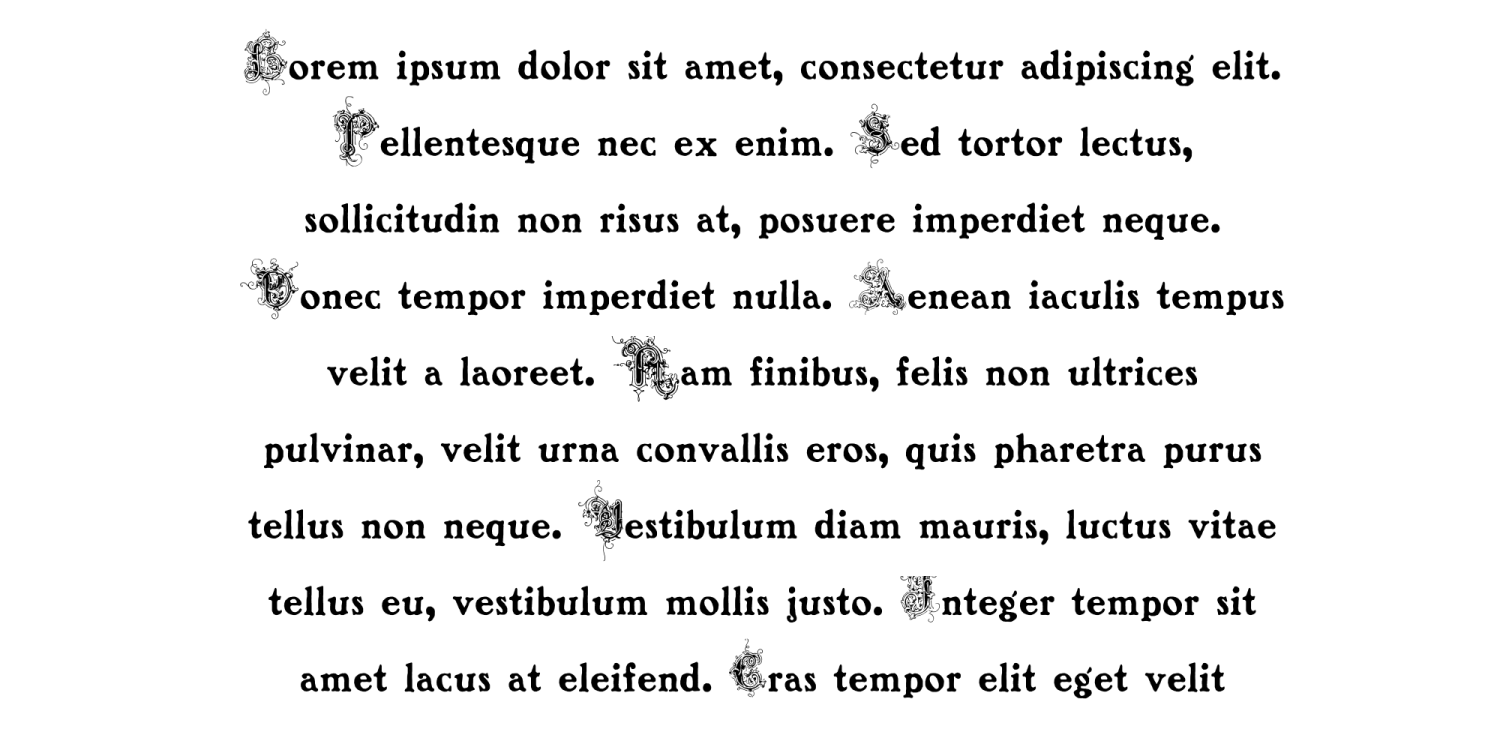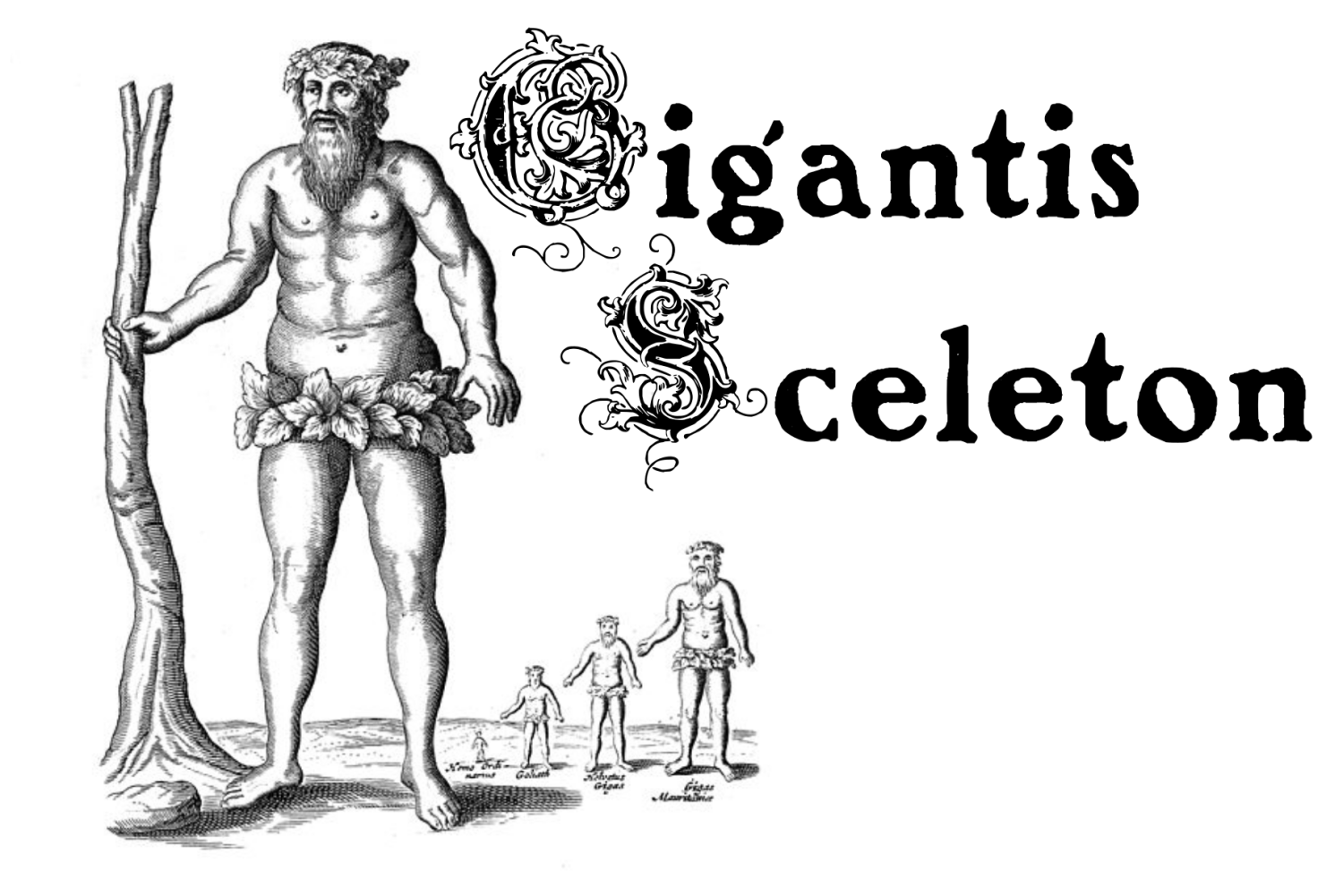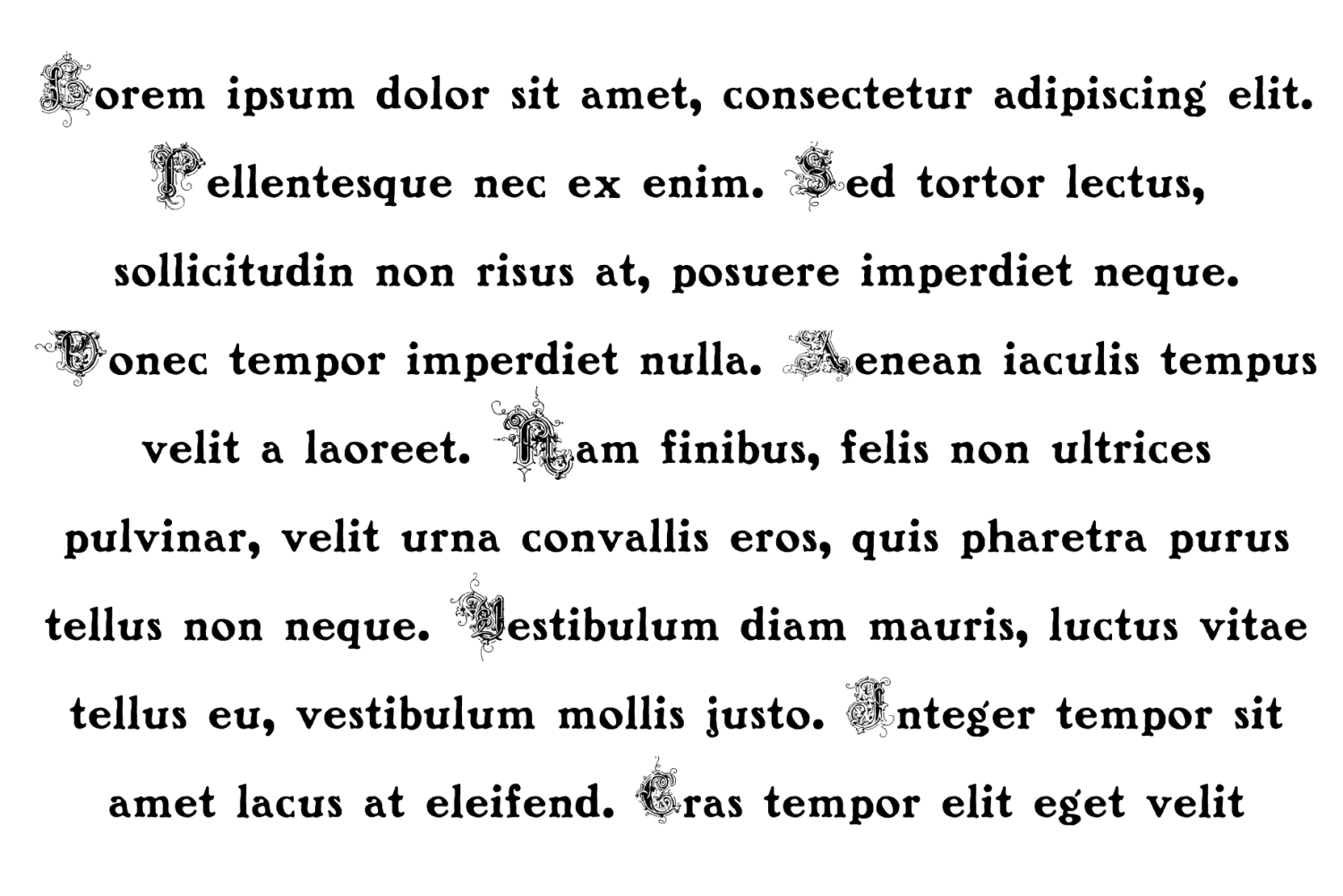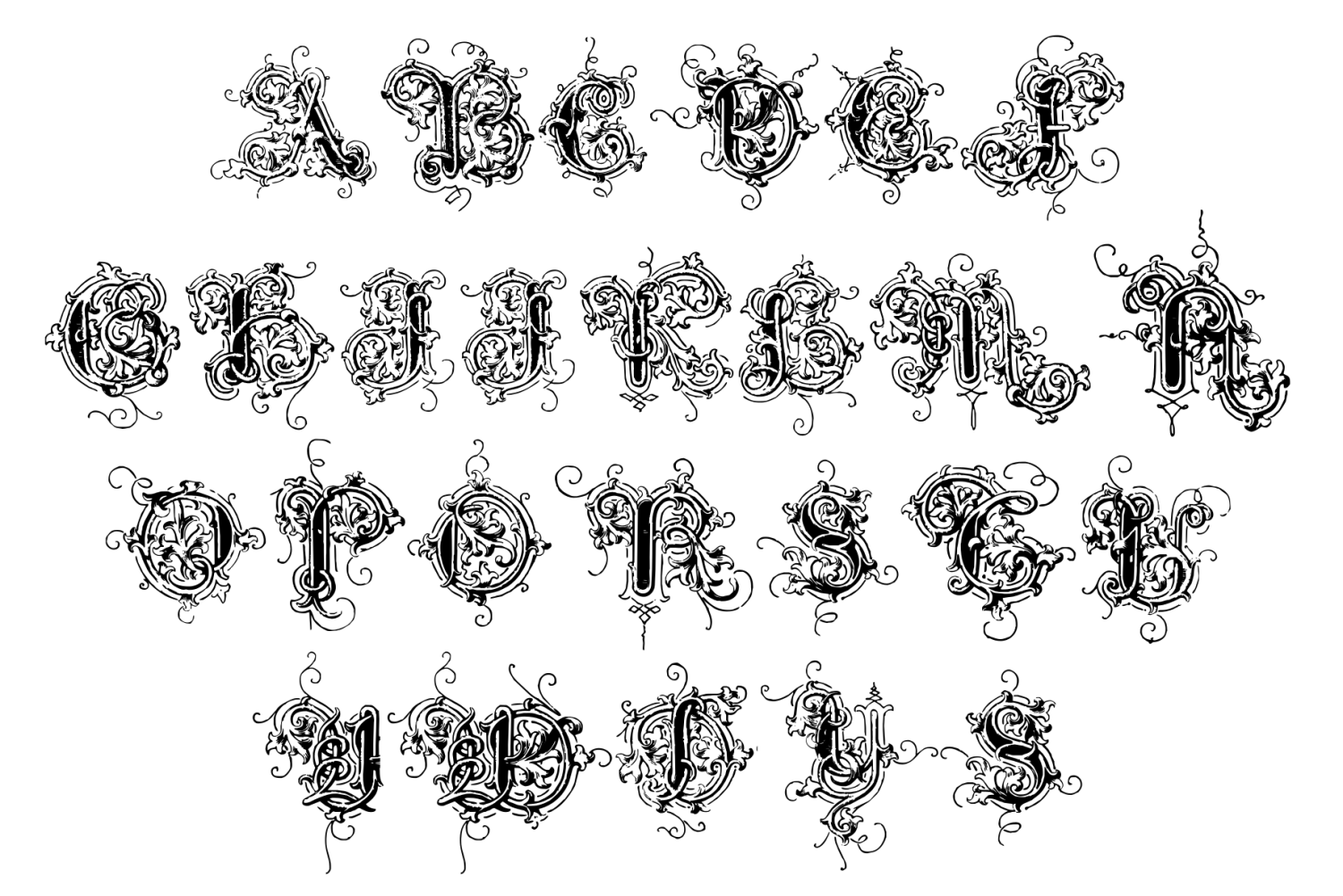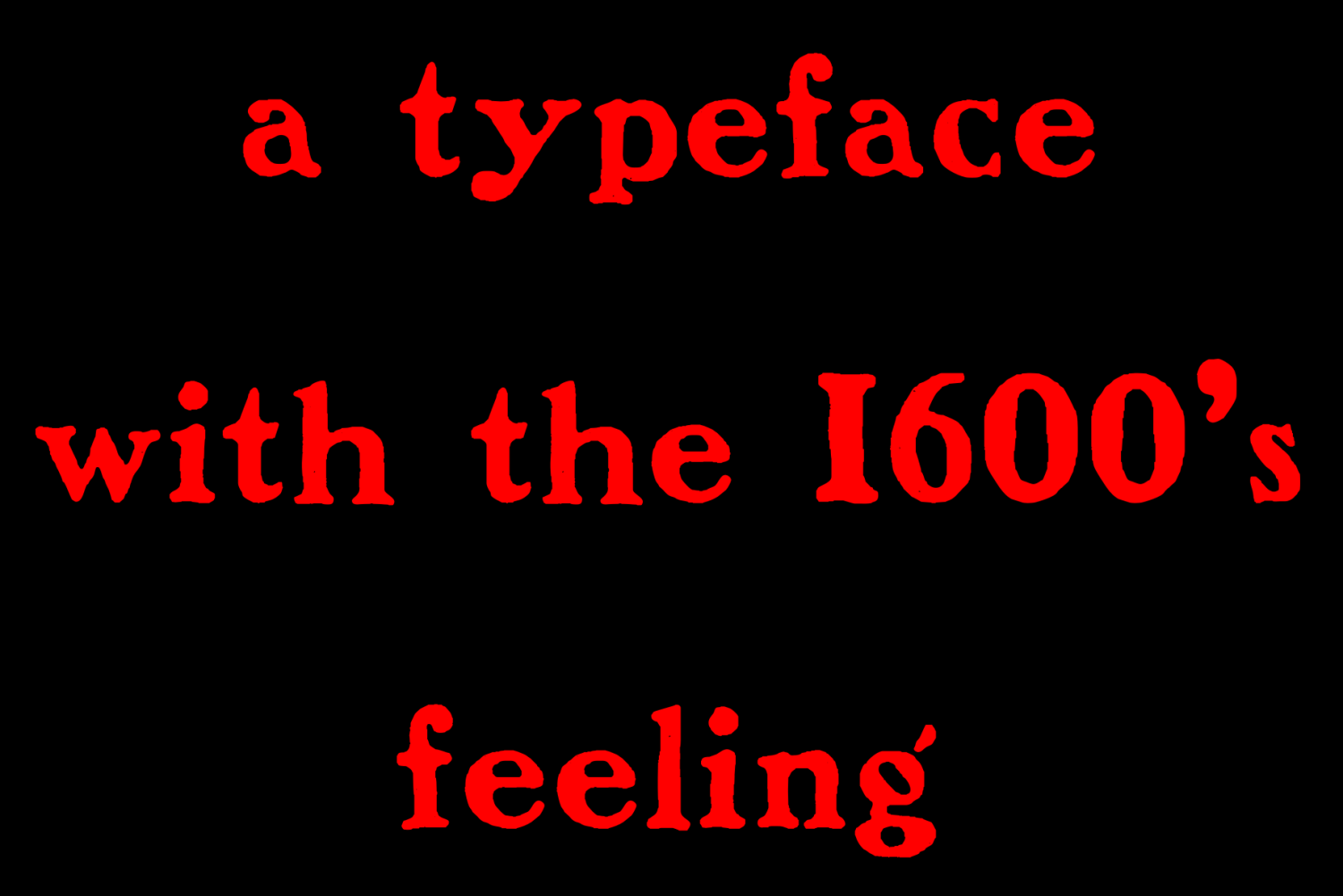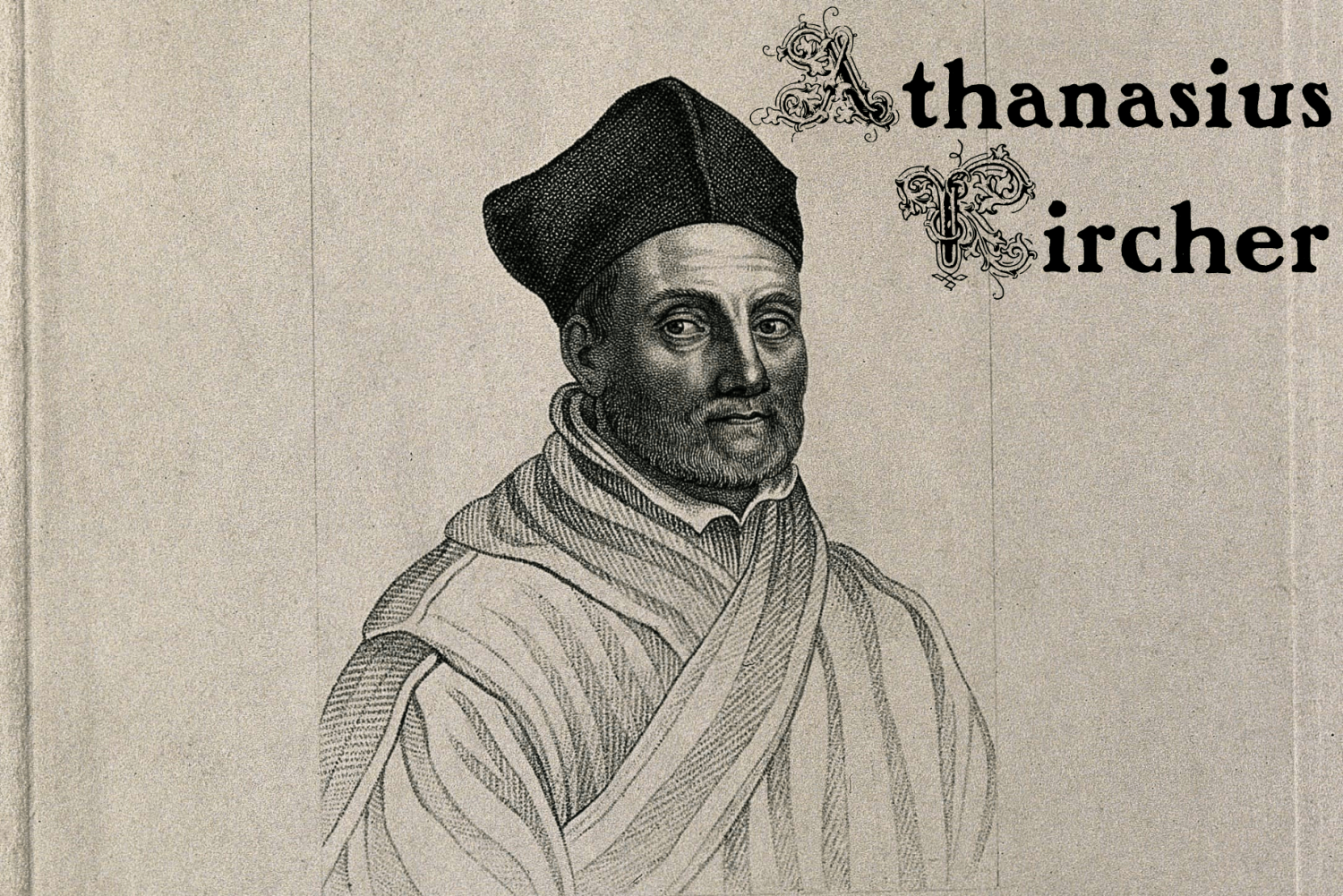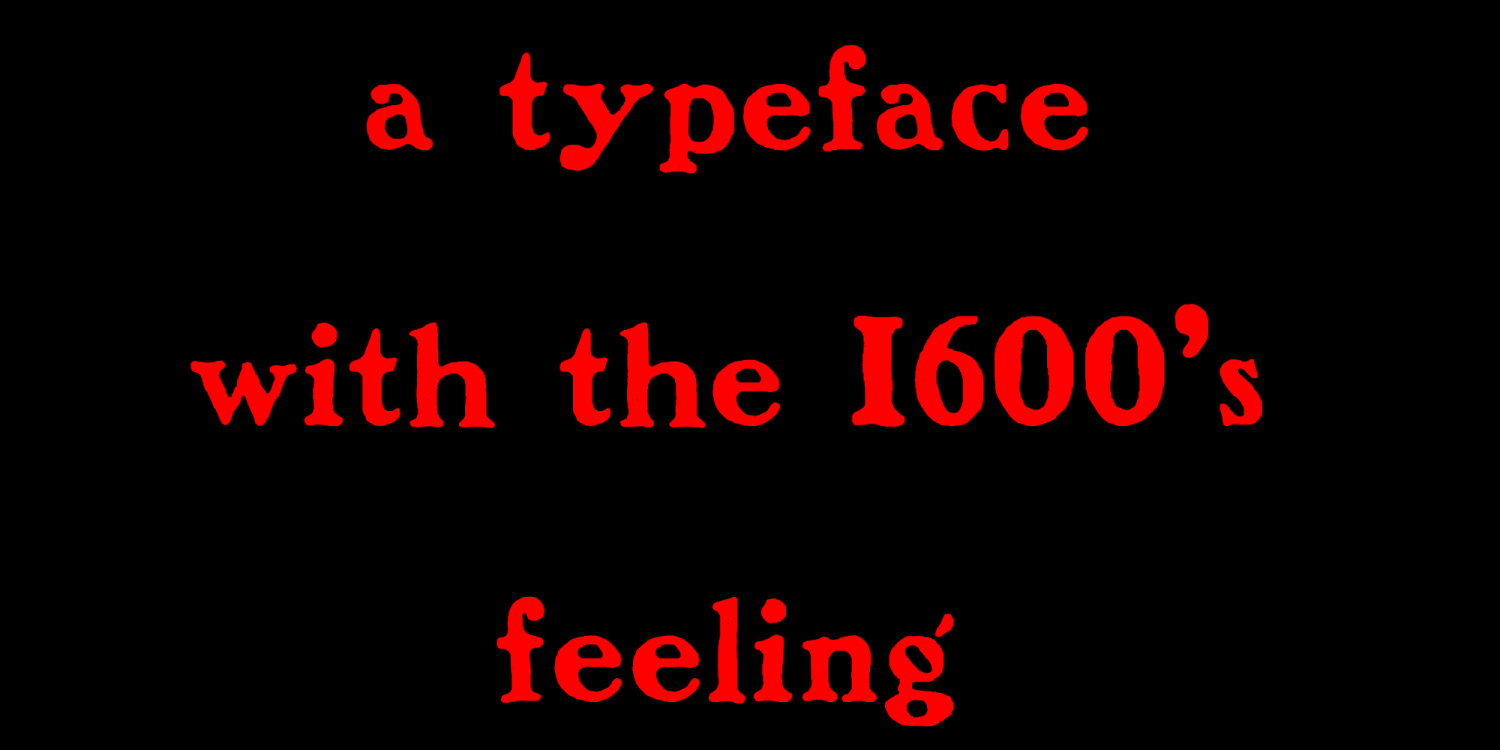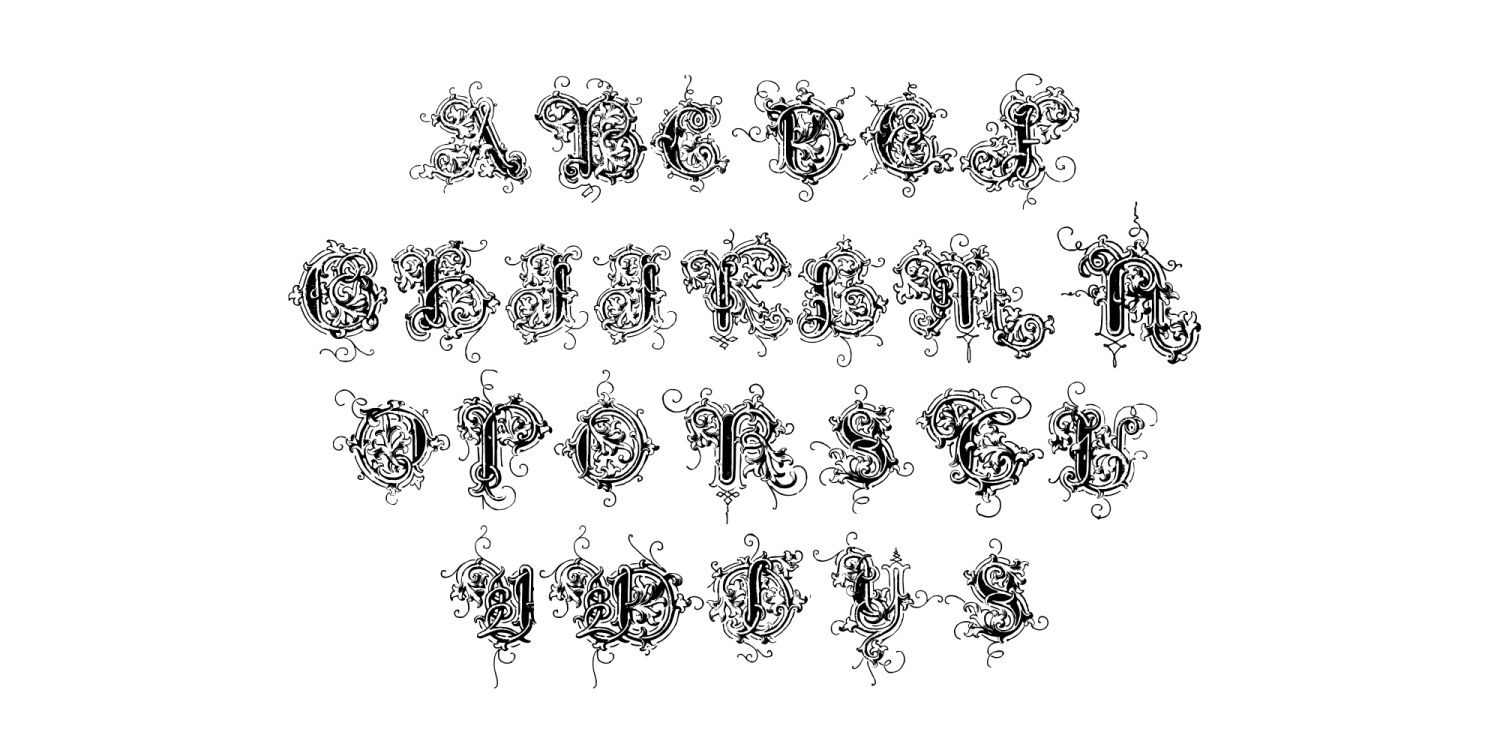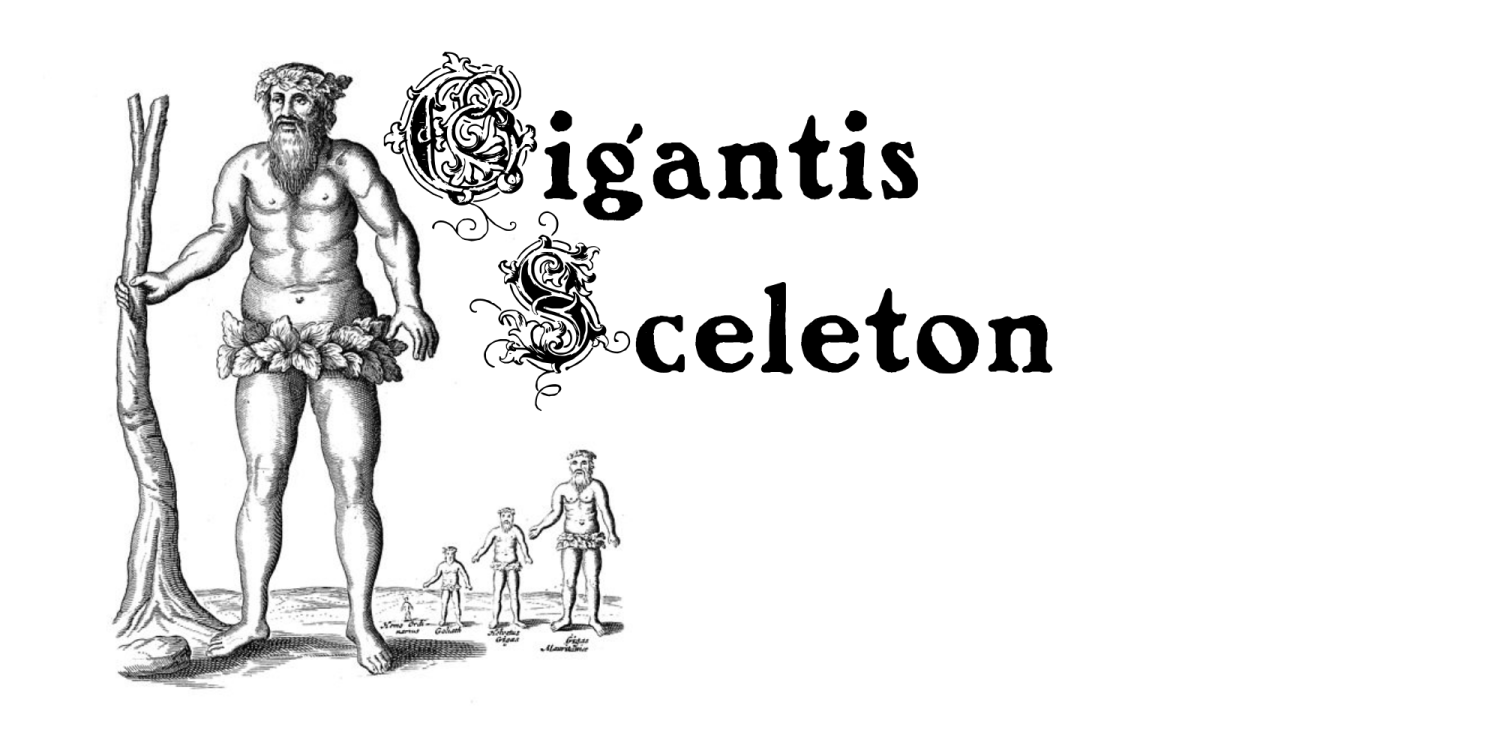
Athanasius Kircher
Introducing Athanasius Kircher, an iconic font embracing the essence of the 1600s. This typeface pairs a beautifully weathered lowercase Roman letter set with uniquely exotic uppercase counterparts. The result? A captivating allure reminiscent of antiquated, elusive, and forbidden texts. Dive into a world of rare and antique grimoires with the enchanting typography of Athanasius Kircher.
Athanasius Kircher was a fascinating figure who embodied the spirit of exploration and learning during the 17th century.
A Scholar of Many Pursuits: A German Jesuit priest, Kircher (1602-1680) was a true polymath. His interests spanned a vast range of subjects, including geography, astronomy, mathematics, languages, medicine, and even music. He brought a scientific curiosity to each field, but it was often intertwined with a mystical understanding of the natural world.
The “Last Renaissance Man”, with his wide-ranging knowledge, Kircher published around 40 major works. His writings explored diverse topics like comparative religion, geology, and medicine. Kircher spent over four decades teaching at the Roman College. There, he established a wunderkammer, a cabinet of curiosities that reflected his fascination with the world’s wonders.
While some of Kircher’s ideas were later proven incorrect by scientific advancements, his influence on the intellectual landscape of the 17th century was undeniable. His vast knowledge and dedication to research helped pave the way for future scholars.